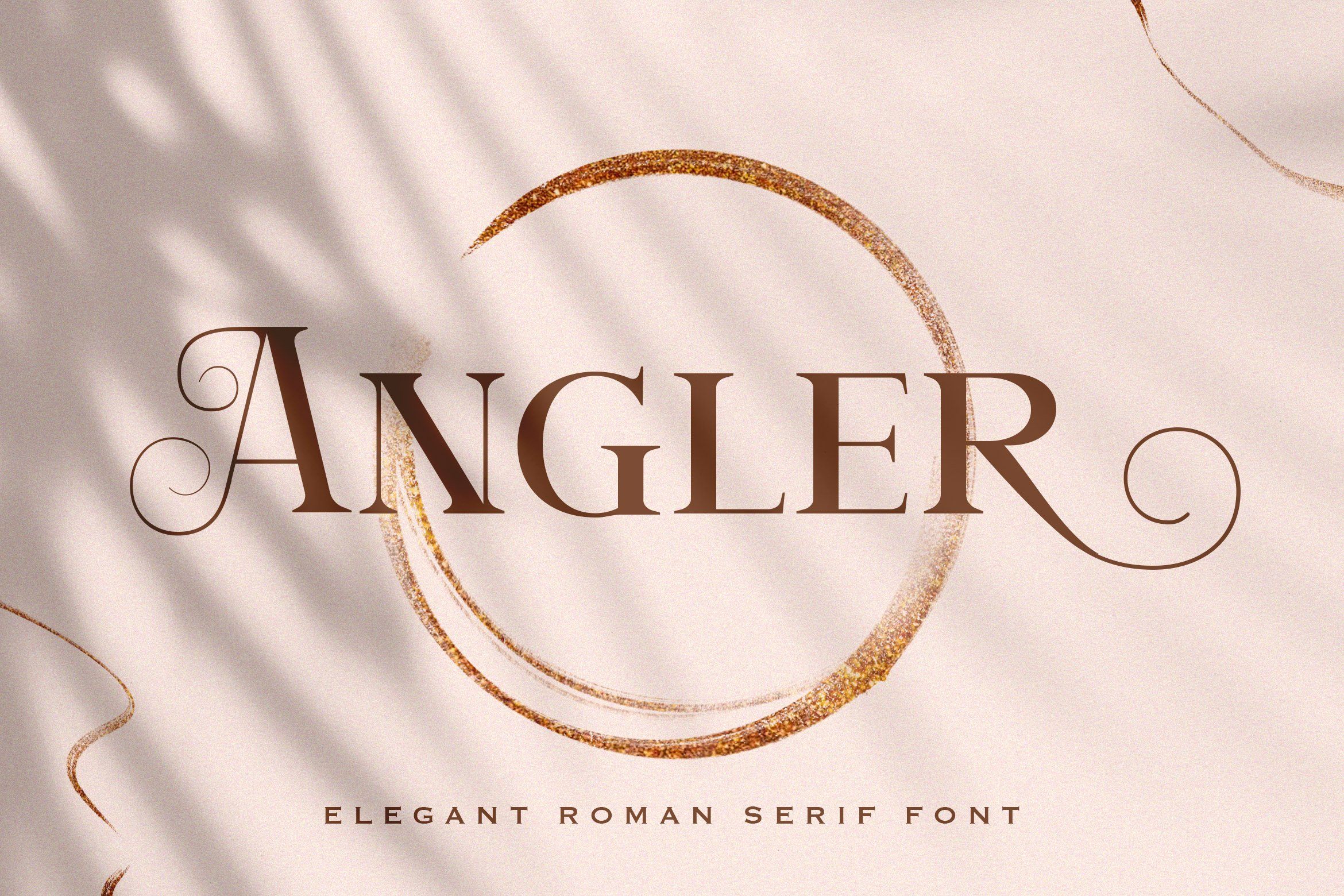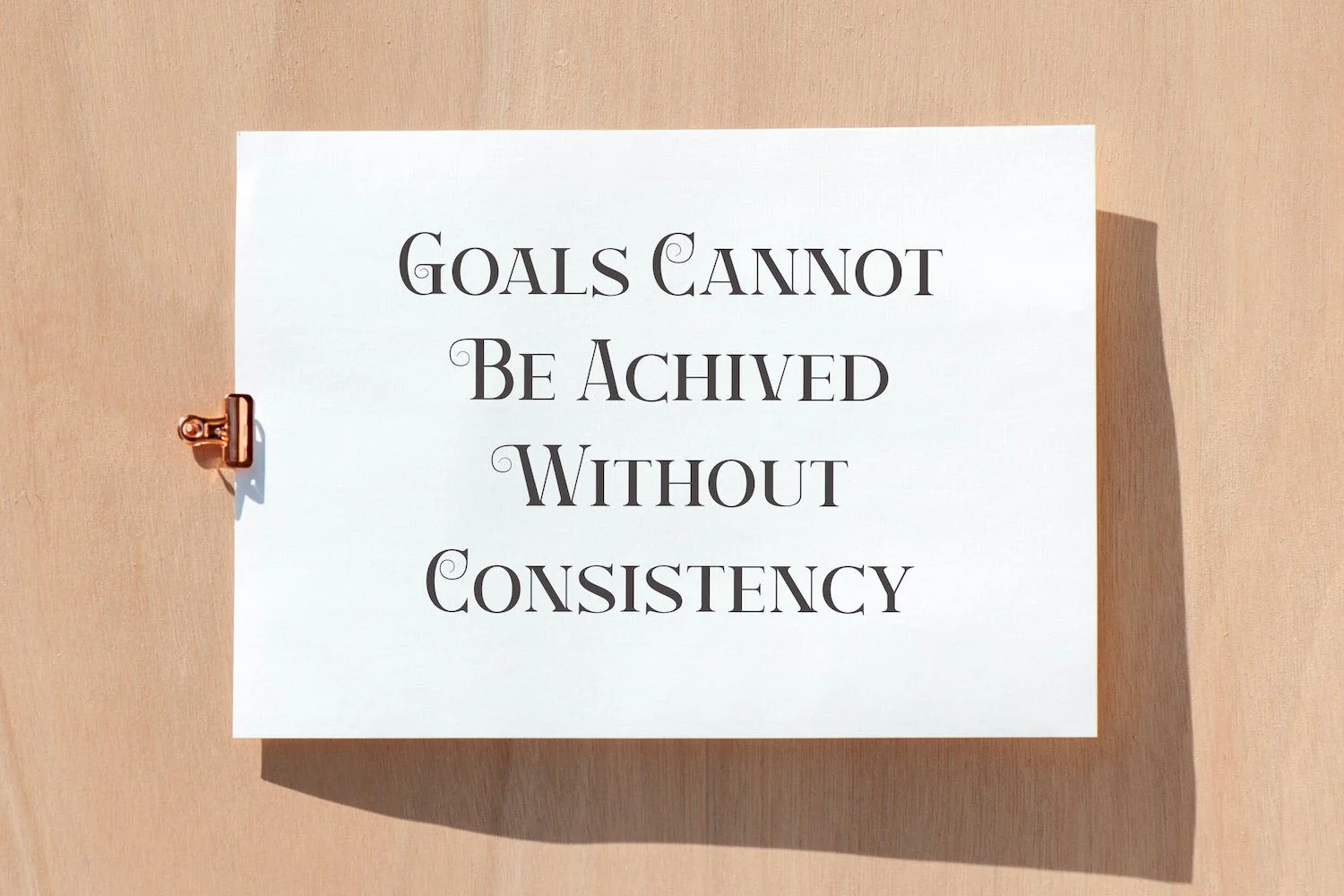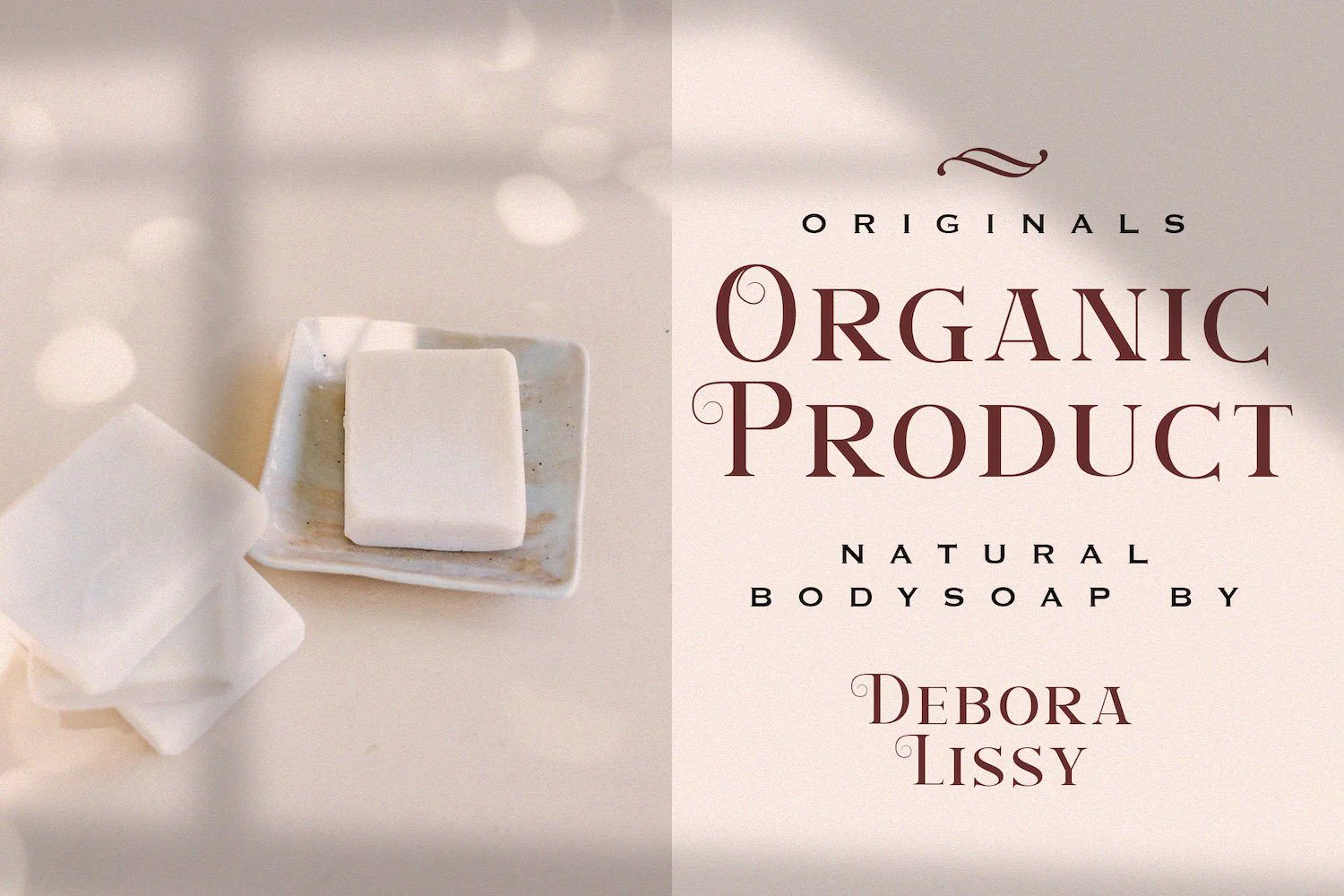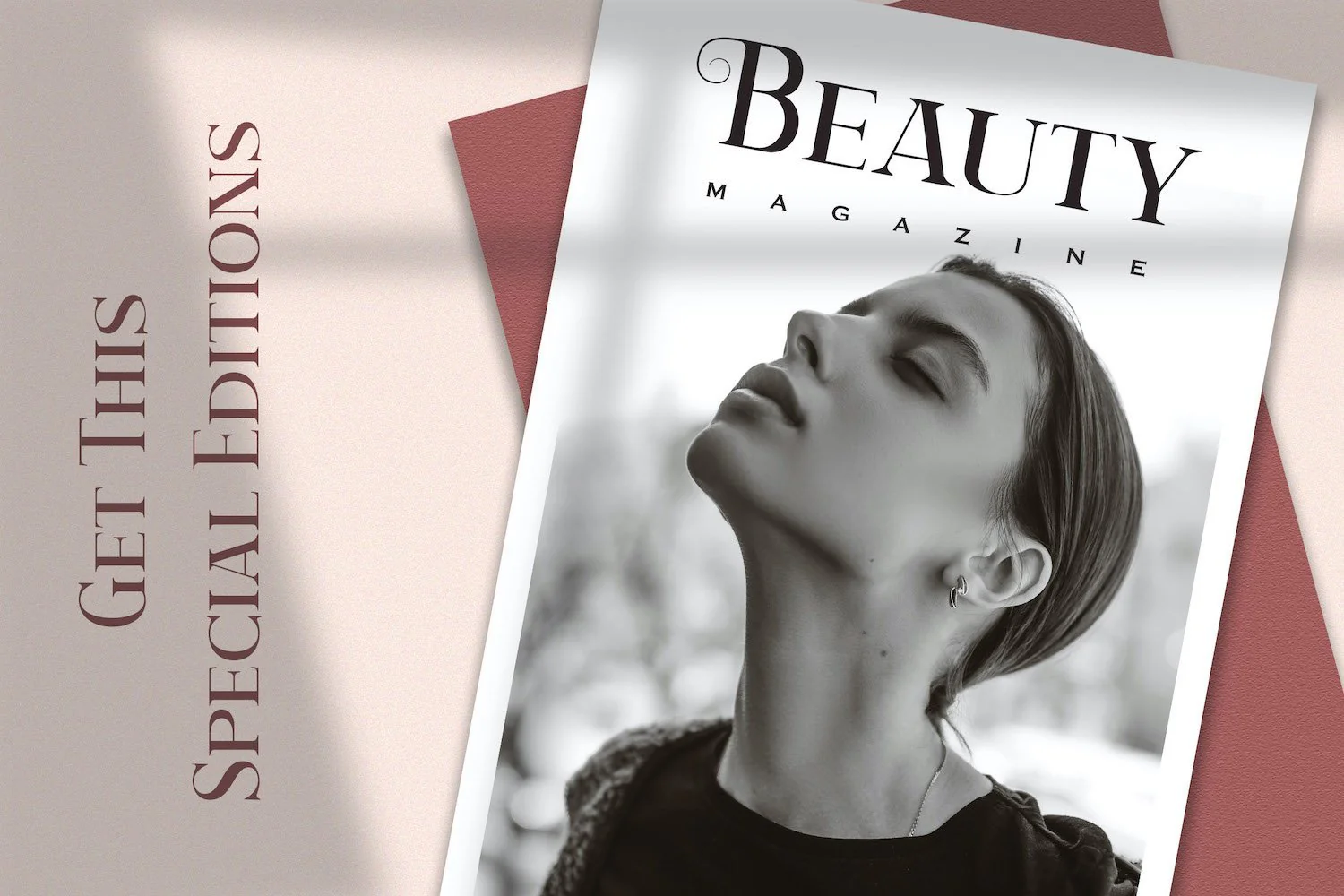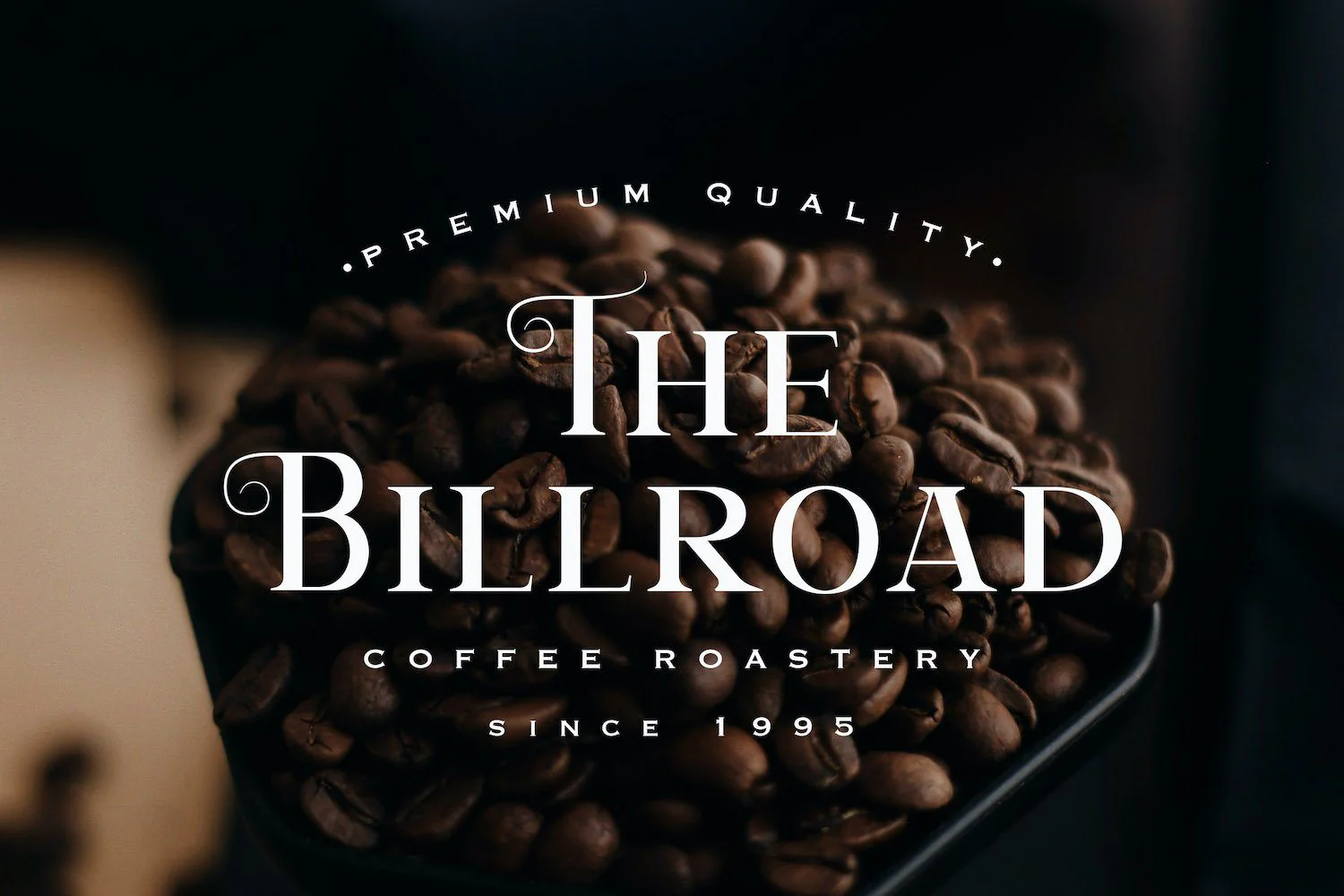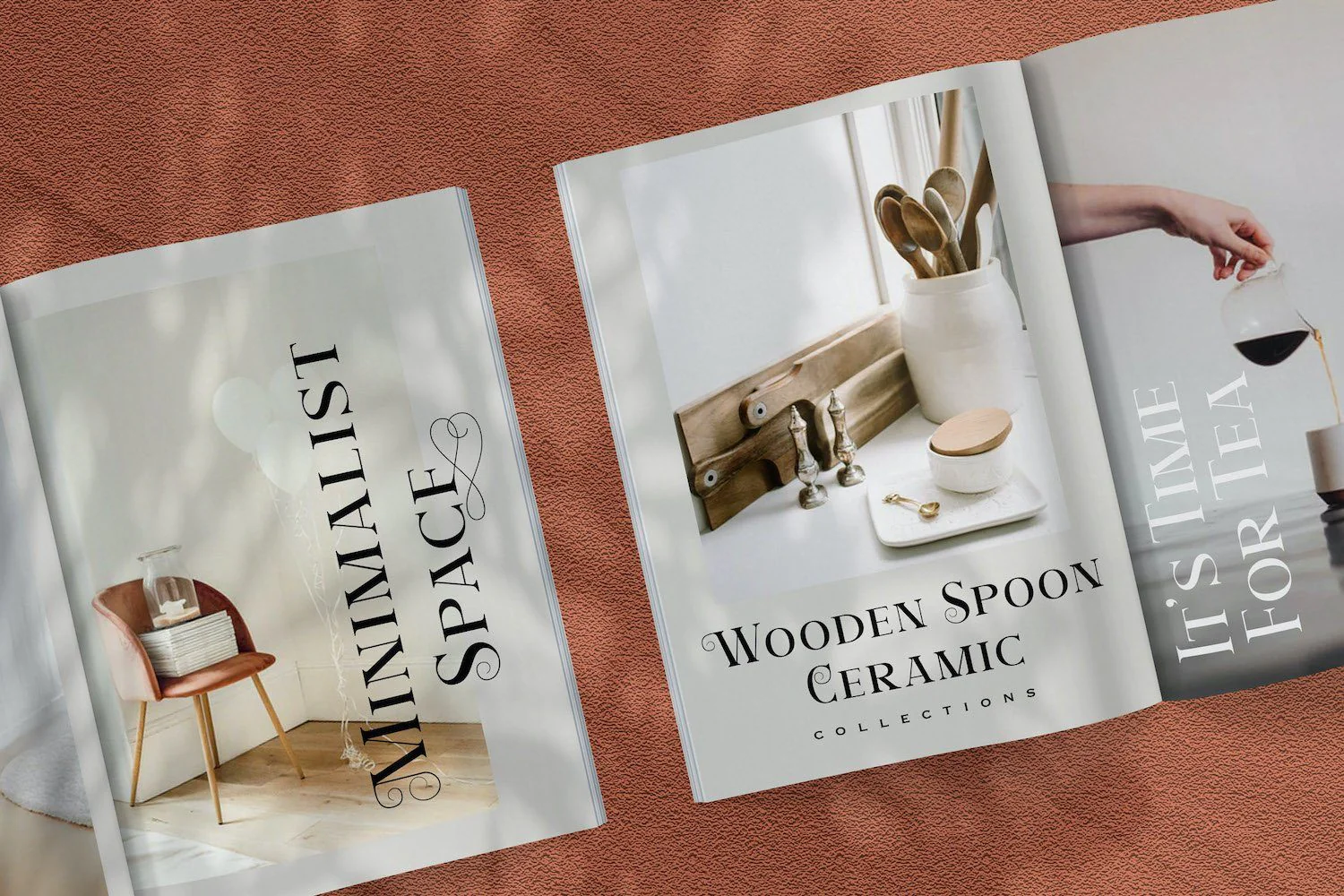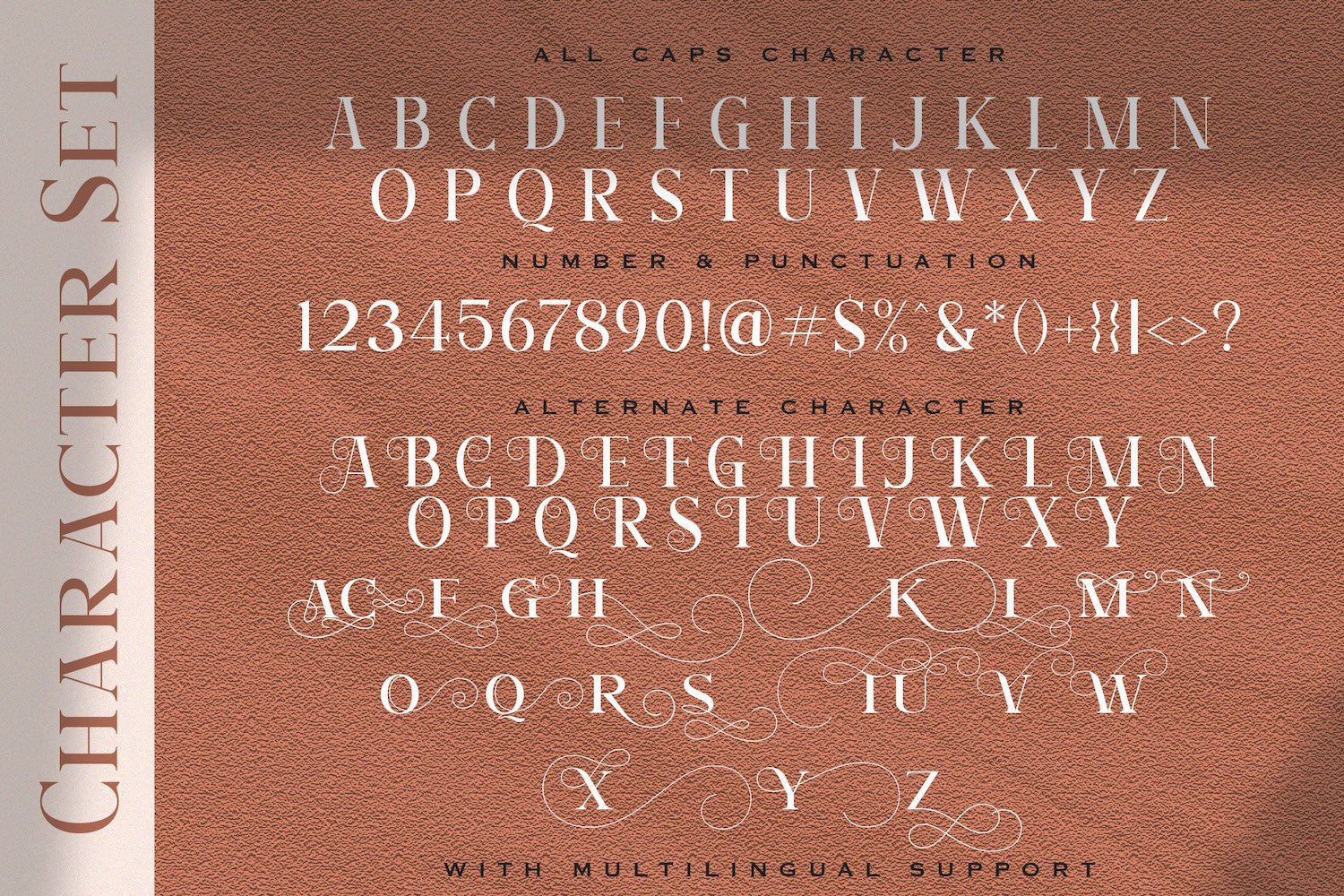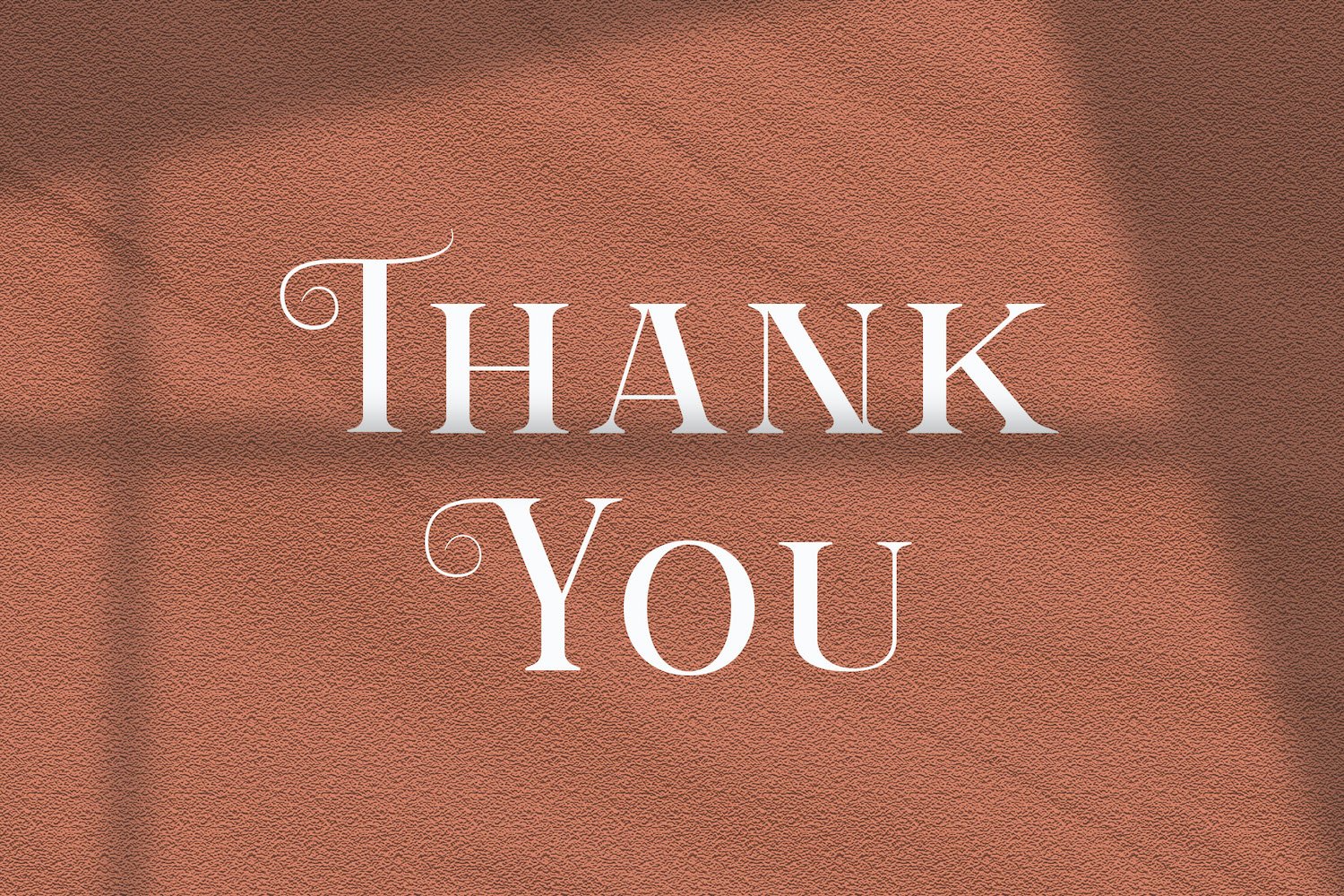
Angler - Roman Serif Font
Introducing Angler - Roman Serif Font
Angler is an authentic and neat serif font. It can easily be matched to an incredibly large set of projects, so add it to your creative ideas and notice how it makes them stand out!
Introducing Angler - Roman Serif Font
Angler is an authentic and neat serif font. It can easily be matched to an incredibly large set of projects, so add it to your creative ideas and notice how it makes them stand out!